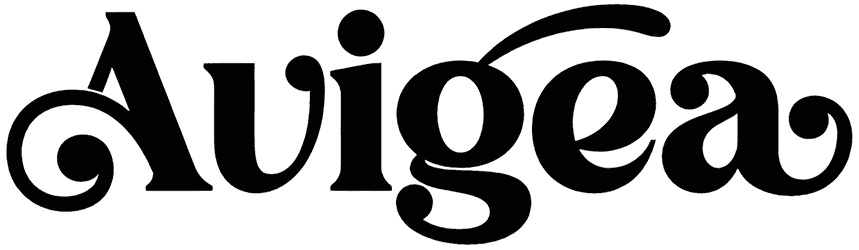
Avigea Font
Choose an item that can be properly matched with various designs and subjects like Avigea. This ligature font has a classic and at the same time modern form, and with A-Z characters supported in two versions, it is an excellent one. For any formal or informal designs, such as logos, fashion ads, and more, Avigea could be a professional display.